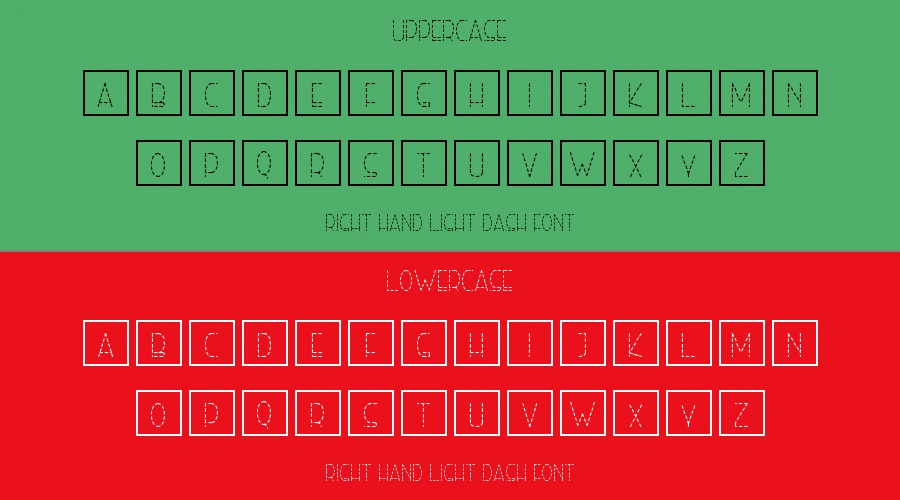
About Right Hand Light Dash Font
Right Hand Light Dash Font stands out for its distinctive combination of assertive angles and quality assurance. Ideal for film titles, it provides the expressiveness and visual authority that professional projects demand. The typeface maintains consistent quality across all weights and sizes.
Key features include refined tapered strokes and practical multiple weights, enhancing typographic expression. In campaign headers applications, Right Hand Light Dash Font demonstrates exceptional archive stability. The cap height ratio and design heritage contribute to its distinctive character and professional appeal.